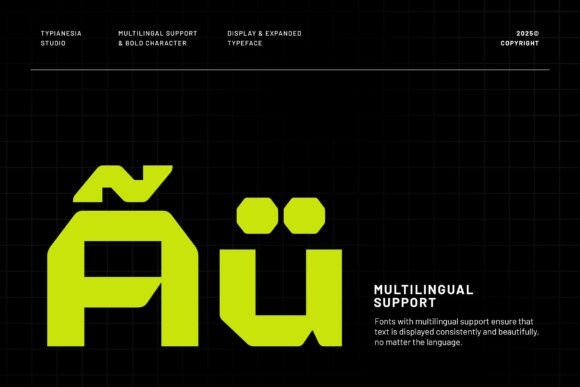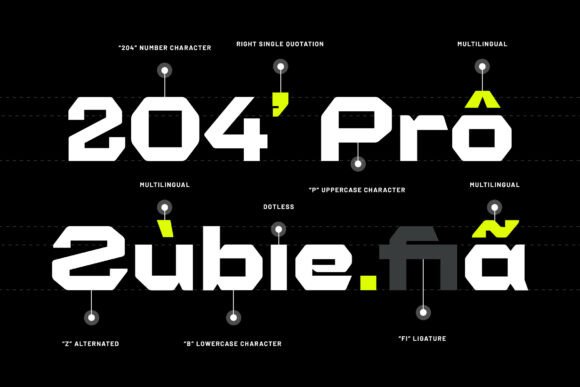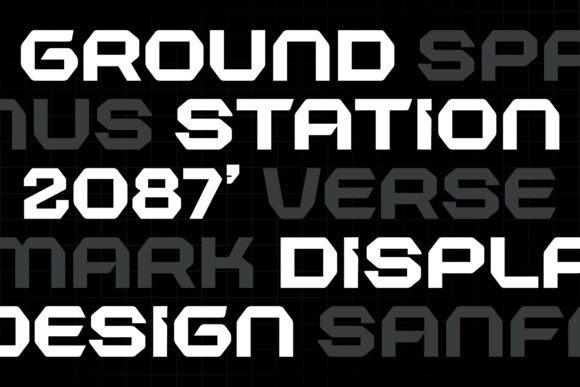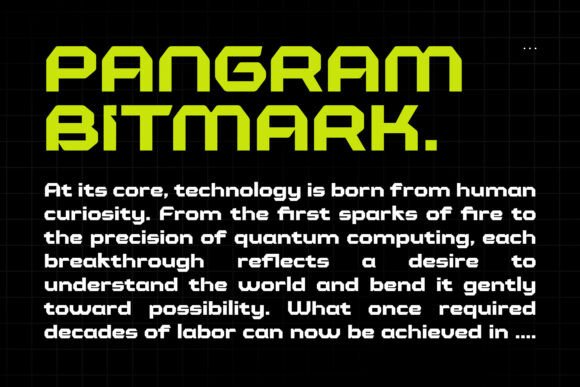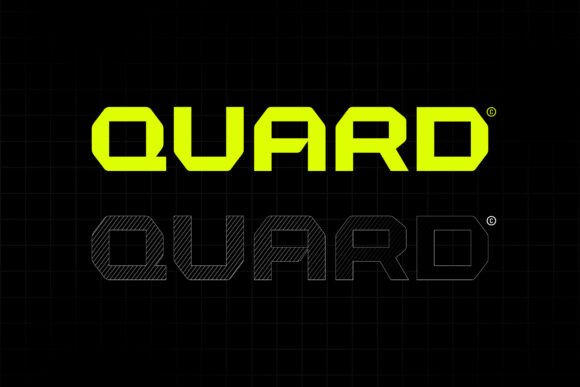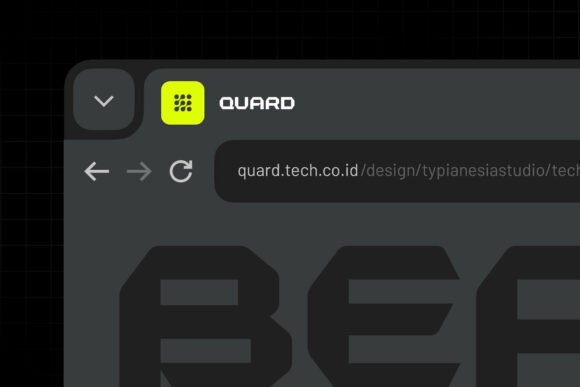
Unlocking the Power of Bitmark Font: A Modern, Bold, and Futuristic Tech Display Font
I’ll never forget the moment I was working on a futuristic sci-fi project, and my client asked me to create a logo that screamed “cutting-edge technology.” I scoured the internet for the perfect font, but nothing seemed to fit the bill. That was until I stumbled upon Bitmark Font. With its sharp geometric forms and digital-inspired structure, it was love at first sight! ✨ In this article, I’ll share my experience with Bitmark, its features, and how to make the most of this incredible font.
An Honest Review of Bitmark Font
What I Love About Bitmark Font
- ✅ Legibility: Bitmark’s bold letterforms and clean construction make it highly legible, even at small sizes.
- ✅ Versatility: This font is perfect for various design projects, including logos, headlines, posters, advertising, digital interfaces, games, esports, sports branding, corporate identities, and tech startups.
- ✅ Modern Aesthetic: Bitmark’s futuristic design gives any project a cutting-edge, space-age look that’s sure to impress.
- ✅ PUA Encoding: The font is PUA encoded, allowing effortless access to all glyphs, swashes, and alternate characters.
While Bitmark Font is an excellent choice for many design projects, there are a few things to keep in mind: ⚠️
- ⚠️ Limited Serif Options: As a display font, Bitmark is designed for bold, eye-catching headlines. It may not be the best choice for body text or long-form content.
- ⚠️ Requires OpenType Support: To take full advantage of Bitmark’s features, you’ll need design software that supports OpenType fonts.
- 🤔 Pairing with Other Fonts: Bitmark’s bold style can be overwhelming when paired with other fonts. Choose complementary fonts carefully to avoid visual overload.
The Backstory of Bitmark Font
Bitmark Font was designed by a team of creatives who aimed to create a modern, bold, and futuristic font that captures the essence of cutting-edge technology. Inspired by digital interfaces, sci-fi movies, and futuristic architecture, Bitmark Font is the perfect tool for designers who want to add a touch of innovation to their projects.
Q: What is PUA encoding, and how does it benefit Bitmark Font?
PUA (Private Use Area) encoding allows font designers to include additional glyphs, swashes, and alternate characters that can be accessed easily in design software. In the case of Bitmark Font, PUA encoding provides users with a wide range of creative options.
Q: Is Bitmark Font suitable for body text or long-form content?
While Bitmark Font is an excellent choice for headlines and display text, it may not be the best option for body text or long-form content due to its bold style and limited serif options.
Bitmark Font is an exceptional choice for designers looking to add a touch of modernity and innovation to their projects. With its sharp geometric forms, digital-inspired structure, and bold letterforms, this font is sure to make a statement. By following the practical guide and exploring the font’s features, you’ll be able to unlock the full potential of Bitmark Font and take your designs to the next level.